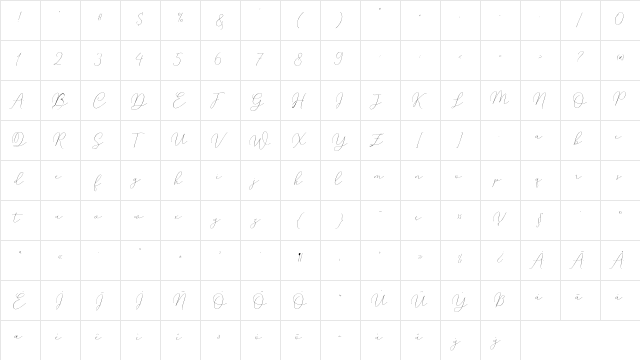
Mindline Script Demo Regular
| Foundry | Creative Lafont Studio |
| Designer | Creative Lafont |
Design Context for Mindline Script Demo Typeface
Mindline Script Demo brings a calligraphic fluidity to the page — its connecting strokes and expressive curves give it an unmistakably human quality.